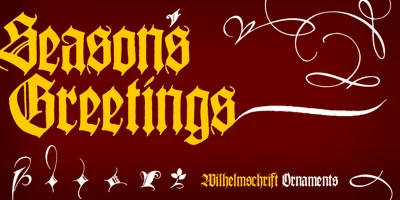
Wilhelmschrift Font
Wilhelmschrift Font is perfect for historical documents, Germanic heritage projects, traditional brewing companies, classical music publications, academic institutions, medieval-themed designs, and authentic European branding. This distinctive typeface brings Old World craftsmanship and Germanic tradition to heritage design projects.
Wilhelmschrift Font is exciting because it captures the essence of traditional Germanic lettering with its carefully preserved historical letterforms that convey authentic heritage and scholarly tradition while maintaining contemporary functionality and exceptional readability.
The Wilhelmschrift Font family includes traditional and modernized variations with authentic historical character sets and decorative elements. This heritage collection provides designers with culturally authentic options for creating memorable and historically respectful brand experiences.
Wilhelmschrift Font offers designers access to a historically crafted typeface that embodies the rich tradition of Germanic lettering and European scholarly heritage. This distinguished font features authentically designed letterforms with traditional proportions that create immediate associations with historical scholarship, cultural heritage, and traditional craftsmanship. The typeface showcases classical construction and refined historical details that enhance cultural communications while maintaining professional functionality. Its heritage character makes it particularly suitable for institutions and brands that require typography capable of conveying historical authenticity, scholarly tradition, and European cultural heritage. Wilhelmschrift Font delivers exceptional historical impact for applications where modern fonts lack the cultural resonance and traditional character necessary for heritage communications. The font's authentic appeal and historical aesthetic make it an essential tool for designers working on projects that require typographic expression of Germanic tradition, scholarly heritage, and Old World craftsmanship that resonates with audiences seeking authentic cultural connections and historical authenticity.